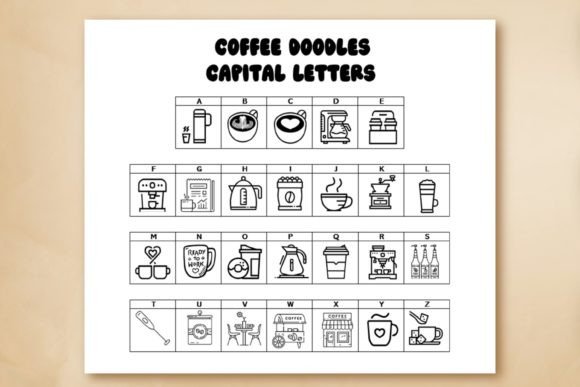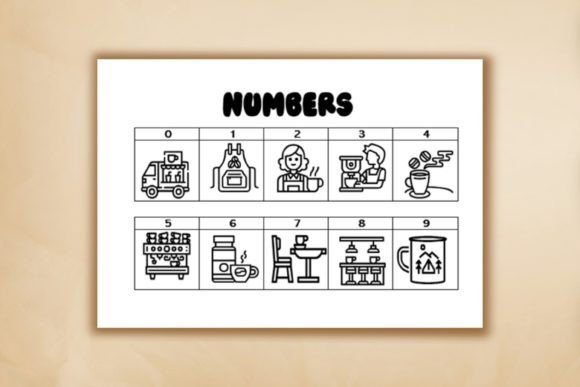
Coffee Doodles Font: A Deliciously Creative Way to Add Caffeine to Your Designs
If you’re like millions of people worldwide, coffee is an integral part of your daily routine. For many, “Coffee Love” is a real thing – a passion that goes beyond just a morning pick-me-up. What better way to express this love than through creative designs that incorporate the rich flavors and imagery of coffee? Introducing the Coffee Doodles Font, a unique doodle/dingbat font that contains 62 flavorful and energizing coffee images to help you add a touch of caffeine to your designs.
What is Coffee Doodles Font?
Coffee Doodles Font is a specially designed font that allows you to add coffee-themed images to your creative projects. With 62 different images to choose from, you’ll have plenty of inspiration to create unique and engaging designs that are sure to delight coffee lovers everywhere. From coffee cups and beans to donuts and frothy milk, this font has everything you need to create mouth-watering designs that will leave your audience craving for more.
How to Use Coffee Doodles Font
Design Ideas with Coffee Doodles Font
So, what can you create with Coffee Doodles Font? The answer is – anything you can imagine! Here are a few ideas to get you started:
- Greeting Cards: Create custom greeting cards for coffee lovers, complete with colorful coffee images and personalized messages.
- Postcards: Design eye-catching postcards that showcase your favorite coffee spots or feature beautiful coffee-themed artwork.
- Scrapbooks: Add a touch of coffee-themed fun to your scrapbooks with these adorable doodles.
- Planners and Journals: Use Coffee Doodles Font to add inspirational quotes, fun headers, or colorful borders to your planners and journals.
- Social Media Posts: Create engaging social media posts that feature coffee-themed images and captivate your audience.
- Invitations: Design custom invitations for coffee-themed parties or events, complete with colorful coffee images and essential details.
- Posters: Create stunning posters that showcase your favorite coffee quotes, images, or artwork.
Customization Options
One of the best things about Coffee Doodles Font is its versatility. You can customize these images to fit your design style and preferences. Here are a few ways to do so:
- Color: Color the images as you would any font, using your favorite colors and color combinations.
- Background Images: Add a background image to the coffee doodles to create a more complex design.
- Plain: Use the images on their own, without any background or additional elements.
Coffee Doodles Font is perfect for designers and crafters who love coffee and want to add a touch of creativity to their projects. Whether you’re a professional designer or a hobbyist, this font is sure to inspire you to create unique and engaging designs that showcase your love for coffee.